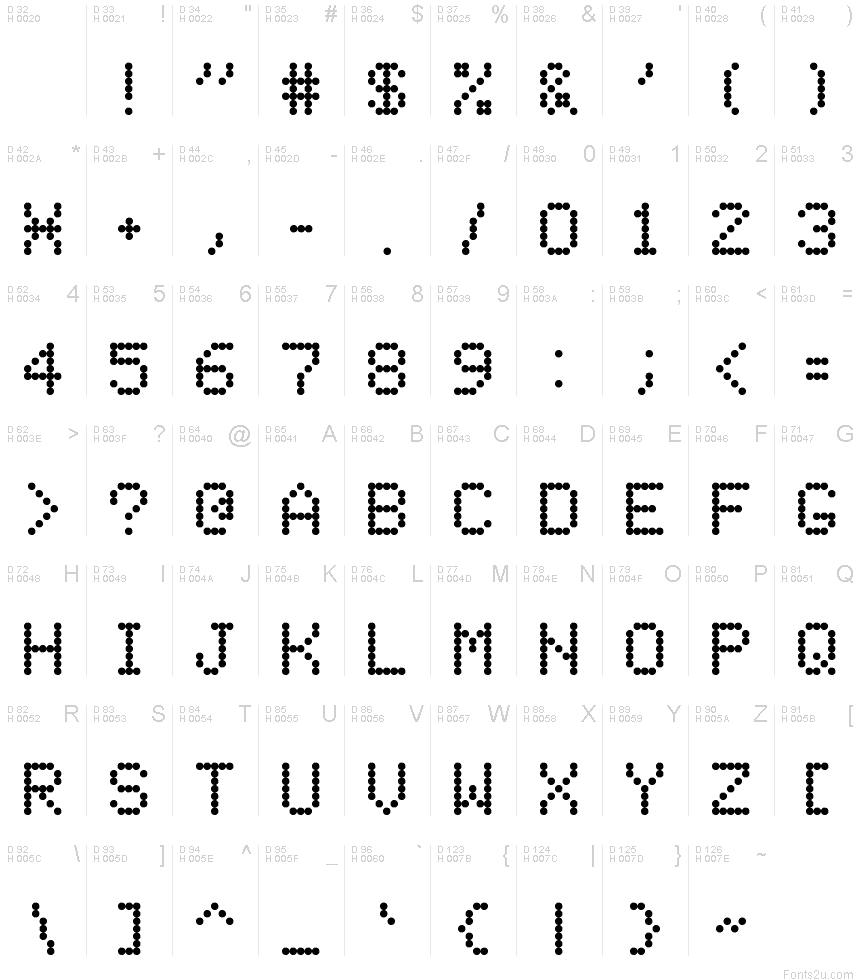
EDillinger, designed by Scott Lawrence of FSI FontShop International GmbH, is a free dot-matrix display font built from evenly spaced circular pixels. Its open, modular letterforms recall scoreboard panels and early electronic signs. The rounded dots soften the strict grid.
Arcade games are its most convincing setting, since the round pixel grid resembles a score display and can become part of the interface. It also suits electronic music posters and technology-themed merchandise, where the repeated dots can continue into borders or simple patterns. For product branding, that modular construction provides a recognizable device for packaging and icons.